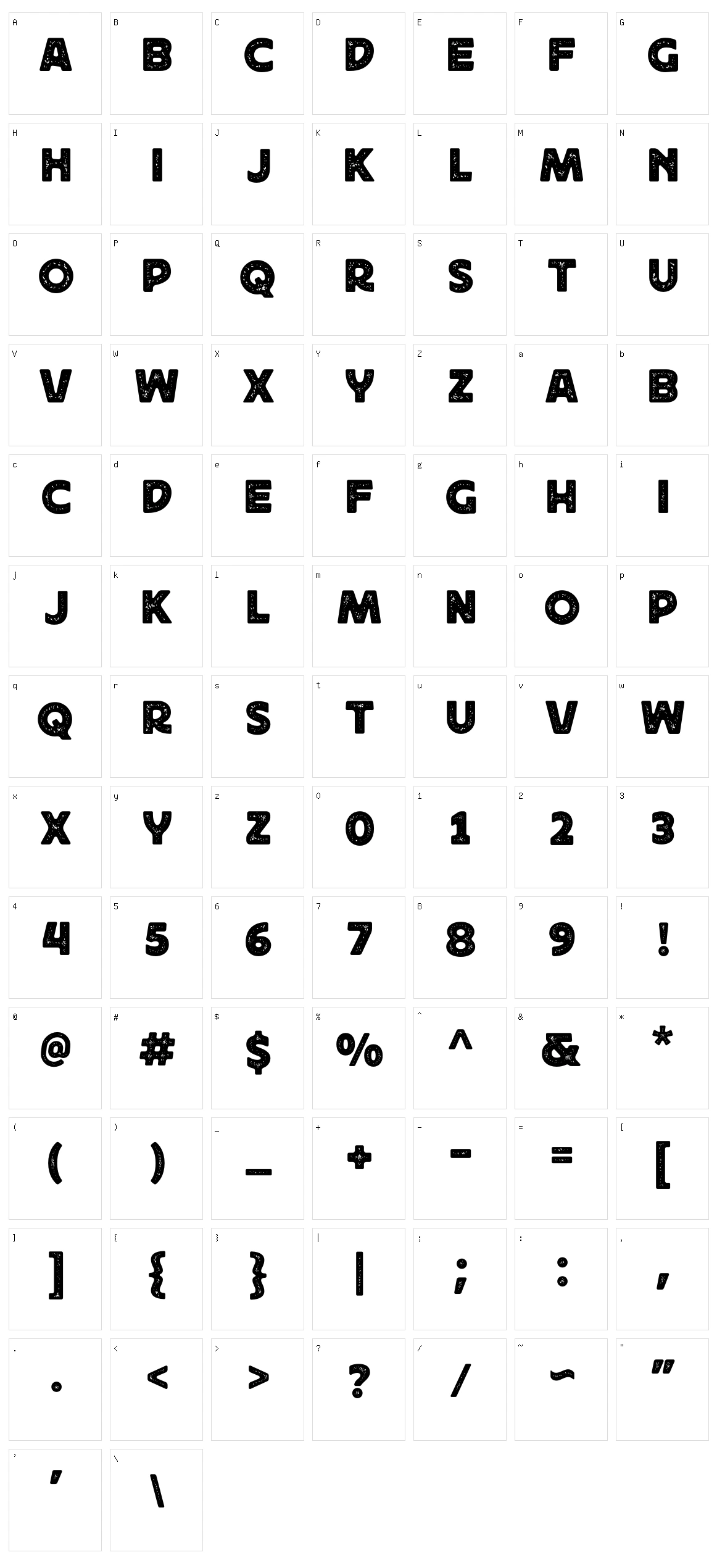
The free font Rushen is carefully designed by Arterfak Project, showcasing a thoughtful balance of creativity and usability and falls under the Eroded font style. When you download the ZIP file, it contains only 164.86 KB of font files, making it lightweight and quick to download. Please review the license details below to understand permitted usage and distribution rights. If license information is not available, we recommend using this font for personal projects only or contacting the author directly for commercial usage permissions.